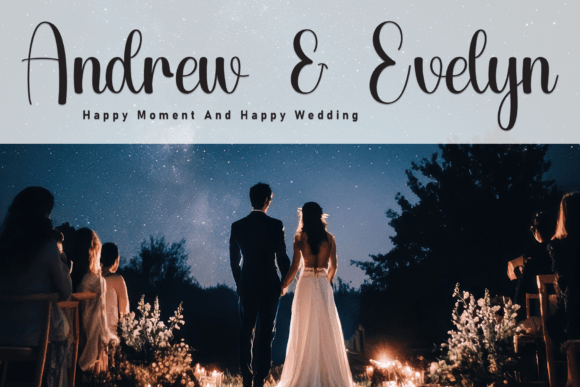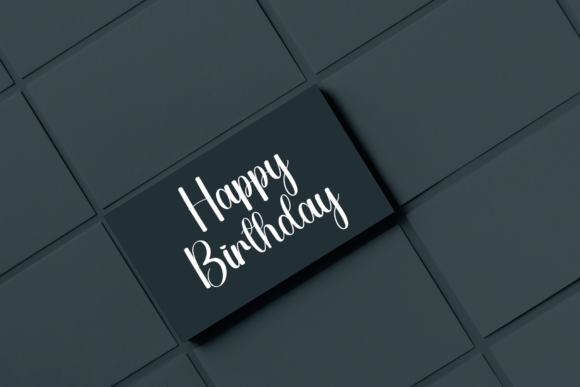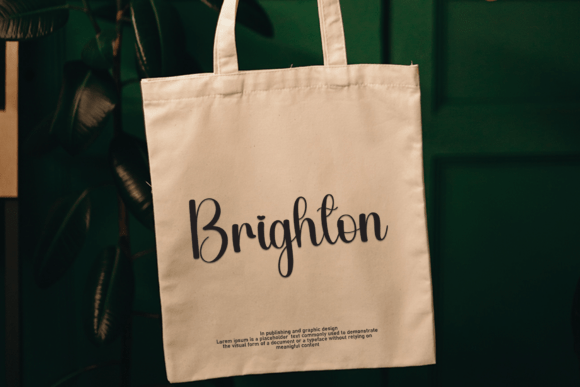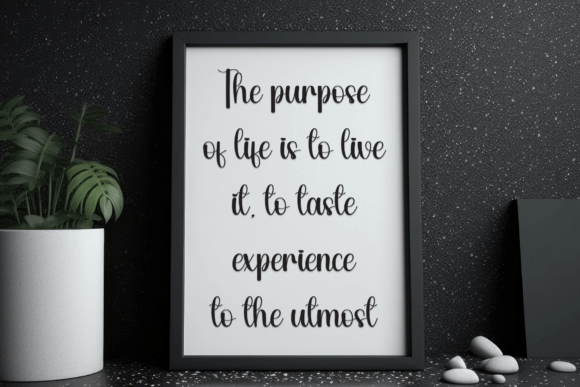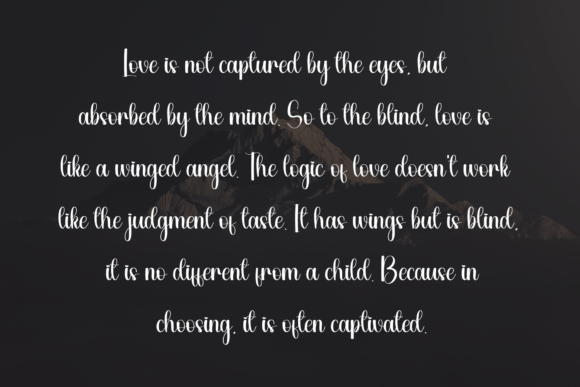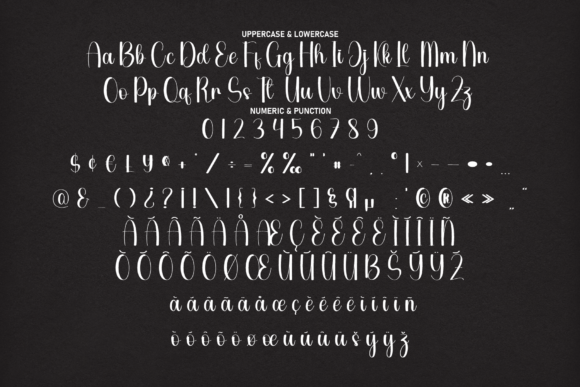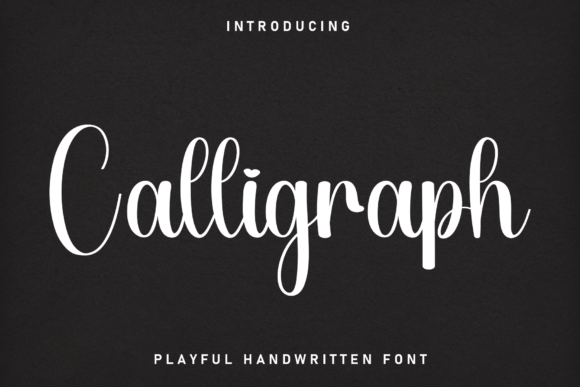
Unveiling the Charm of Calligraph Font: Elevate Your Designs with a Touch of Whimsy
In the realm of typography, few fonts manage to capture the essence of elegance and playfulness simultaneously. However, the Calligraph Font stands out as a delightful handwritten display font that brings a whimsical twist to every design story. Its intricate strokes and steady rhythm emanate a friendly and inviting aura, making it an ideal choice for designers and crafters seeking to infuse a touch of entertaining uniqueness into their work.
The Art of Calligraph Font
This typographic masterpiece is characterized by its distinctive, handcrafted feel that sets it apart from more conventional fonts. Each letter is carefully designed to contribute to a harmonious visual flow, making it perfect for a wide range of applications. Whether you’re working on an elegant wedding invitation, a greeting card, or any other design project, the Calligraph Font is sure to make a lasting impression.
One of the standout features of the Calligraph Font is its versatility. It’s a font that can effortlessly adapt to various design needs, making it a valuable asset for contemporary designers and crafting enthusiasts alike. Its ability to convey both sophistication and playfulness means you can use it in a multitude of contexts without worrying about it looking out of place.
- Elegant Wedding Invitations: Add a touch of sophistication and romance to your wedding invitations with this beautiful font.
- Greeting Cards: Make your greeting cards pulsate with unmatched creativity and warmth, perfect for any occasion.
- Digital and Print Media: Use it in your digital content or print materials to add a personal and unique touch.
Why Choose Calligraph Font?
In a world where design plays a crucial role in communication, standing out from the crowd is essential. The Calligraph Font offers a unique blend of aesthetic appeal and functionality, making it more than just a set of letters. It’s a vital tool for anyone looking to craft a distinctive type that resonates with their audience.
Key Benefits:
- Visually Appealing: Its whimsical design ensures that your work catches the eye.
- Emotional Connection: The friendly and inviting aura of the font helps create an emotional connection with your audience.
- Versatility: Suitable for a wide range of design projects, from elegant to playful.
How to Use Calligraph Font Effectively
To truly leverage the potential of the Calligraph Font, consider the following tips:
- Pair it with Simplicity: Let the font be the focal point by pairing it with simpler backgrounds or design elements.
- Experiment with Colors: Play around with different colors to find the perfect match that enhances the font’s unique characteristics.
- Mix and Match: Don’t be afraid to combine the Calligraph Font with other fonts to create a dynamic and engaging design.
The Calligraph Font is a game-changer for designers and crafters on a quest for a distinctive type that leaves a lasting impression. Its unique blend of whimsy, elegance, and versatility makes it an invaluable asset in the world of design. Whether you’re aiming to add a touch of sophistication to a wedding invitation or inject fun into a greeting card, this font is your ideal choice. So, why settle for the ordinary when you can enliven and enhance your creations with the charm of the Calligraph Font?
Embark on a journey to elevate your designs with a touch of whimsical elegance. Discover the endless possibilities that the Calligraph Font has to offer and transform your work into captivating visual stories that resonate with your audience.